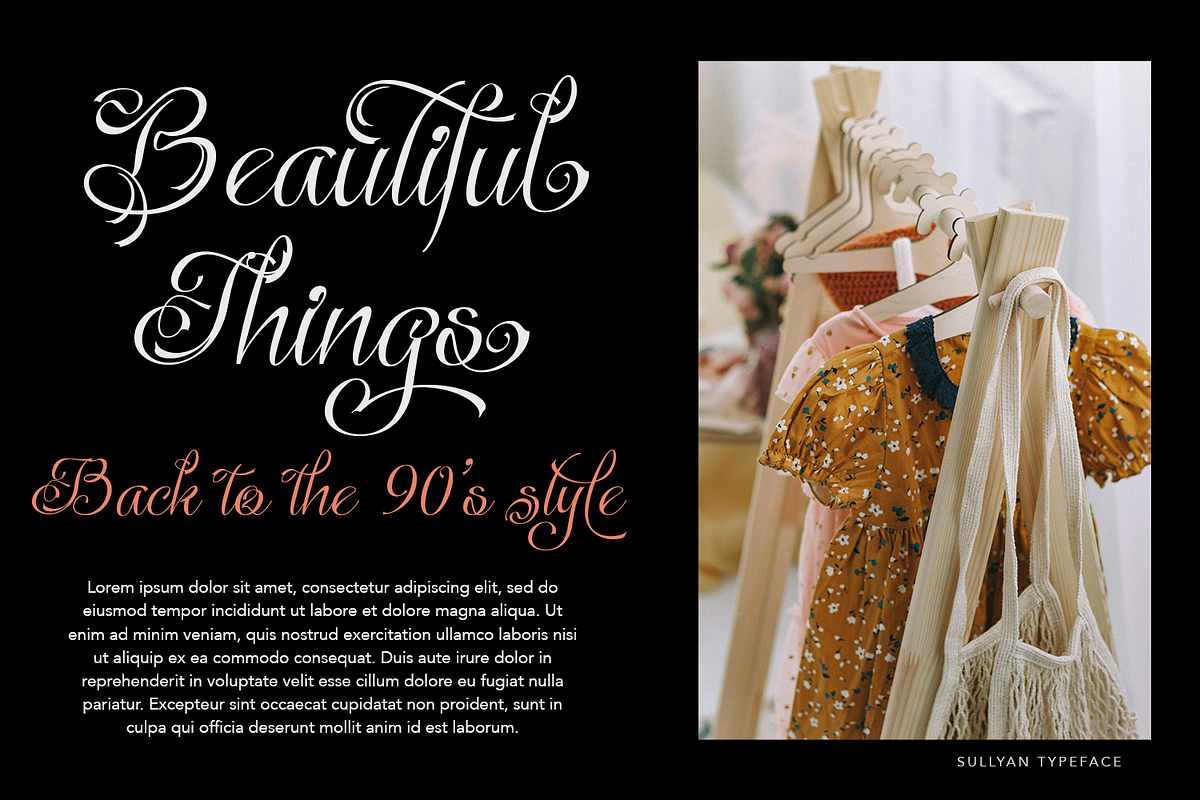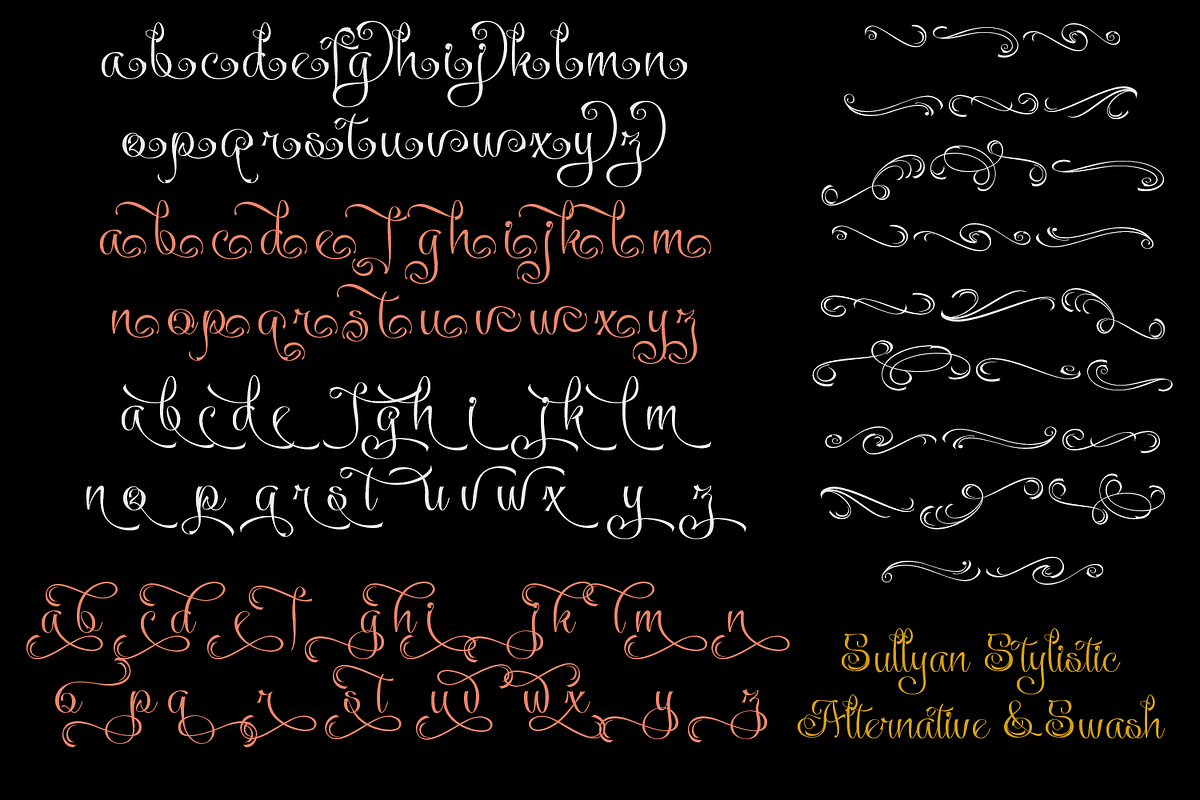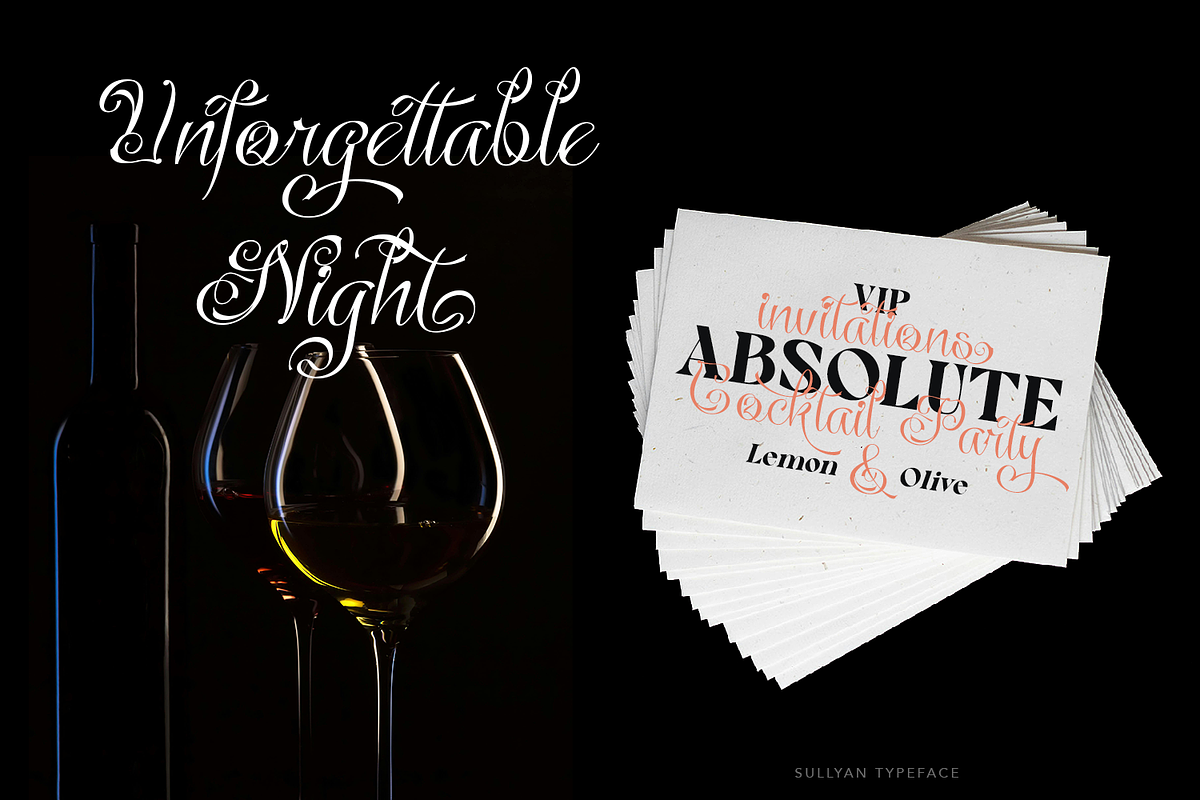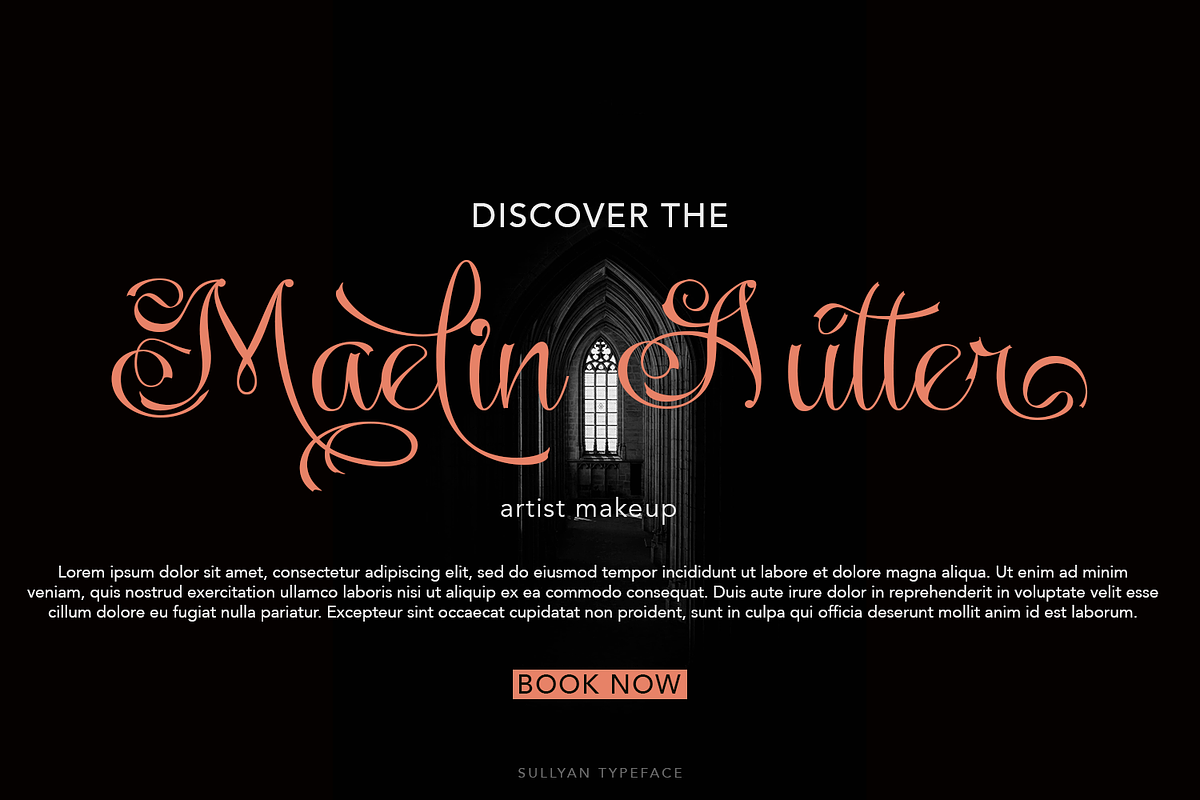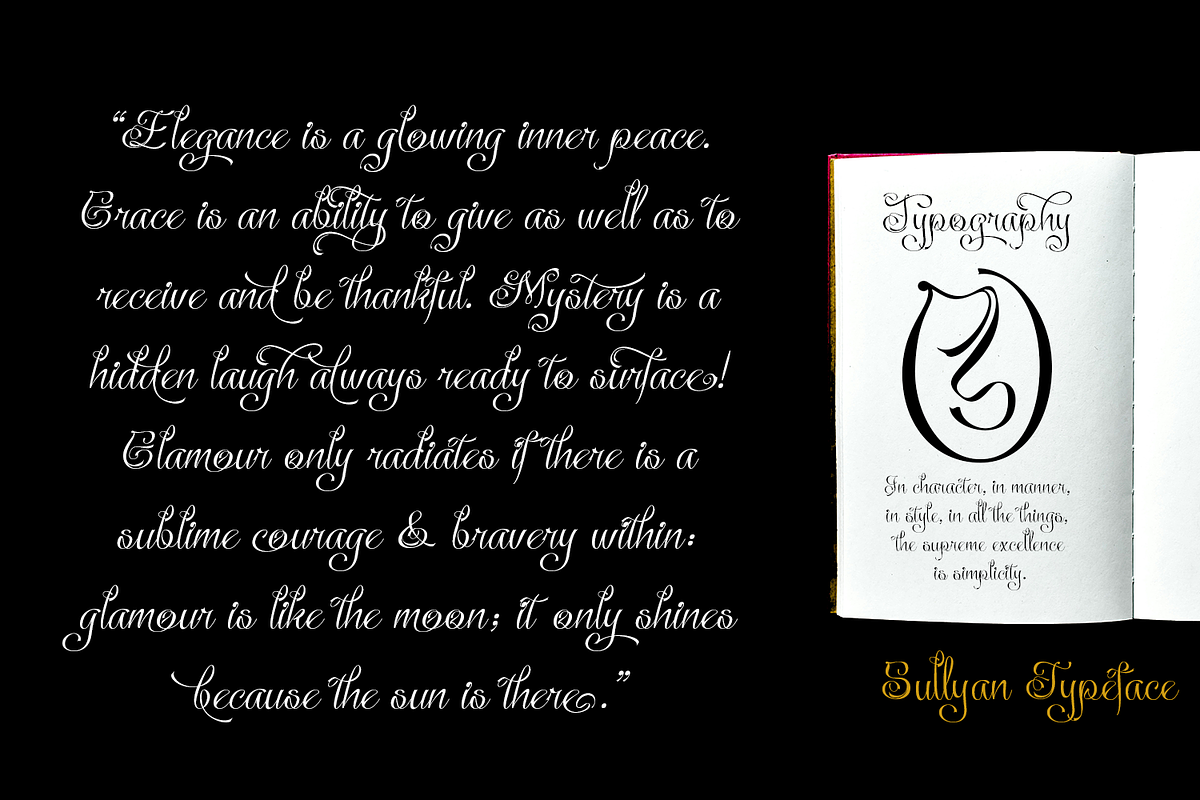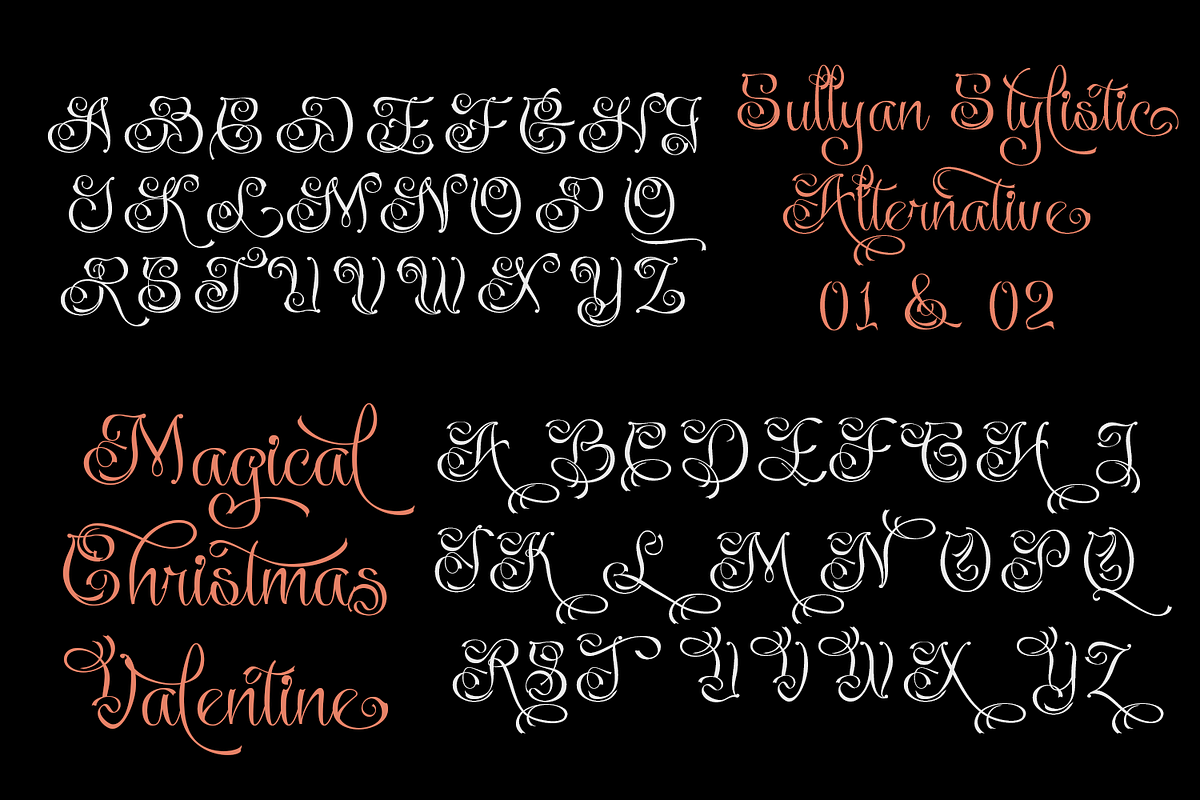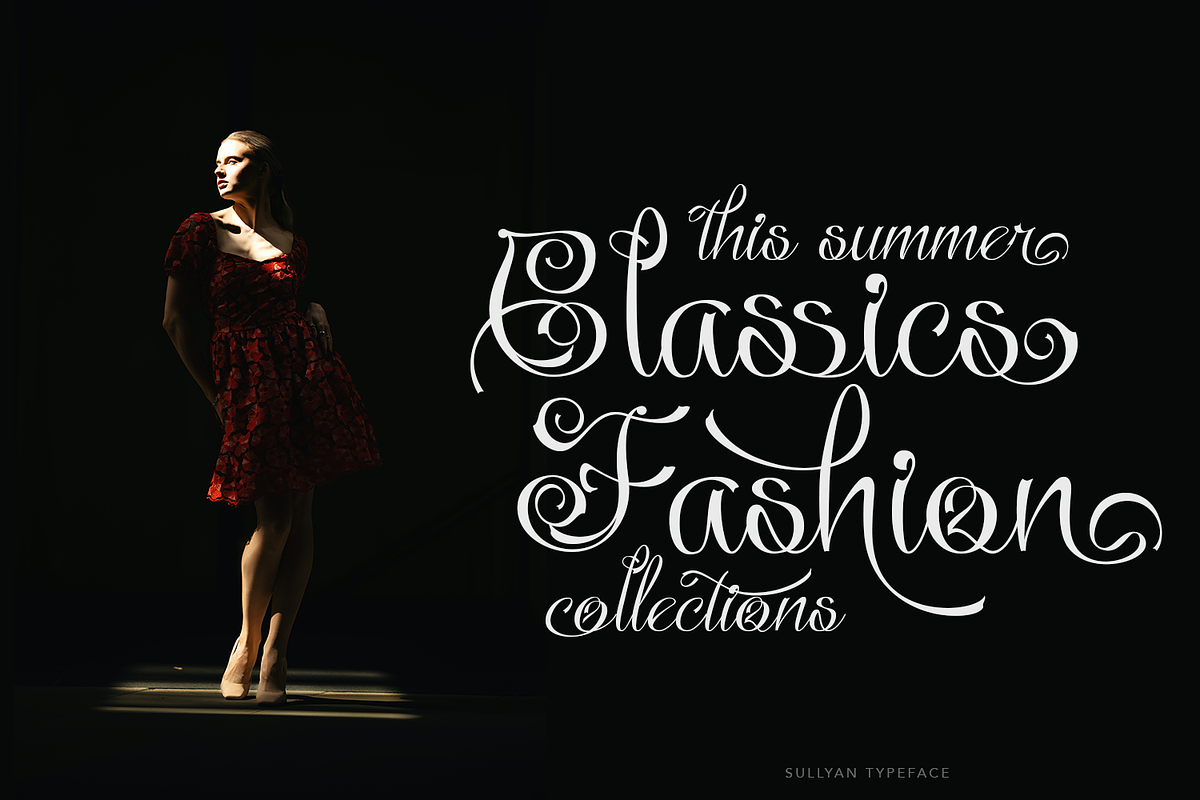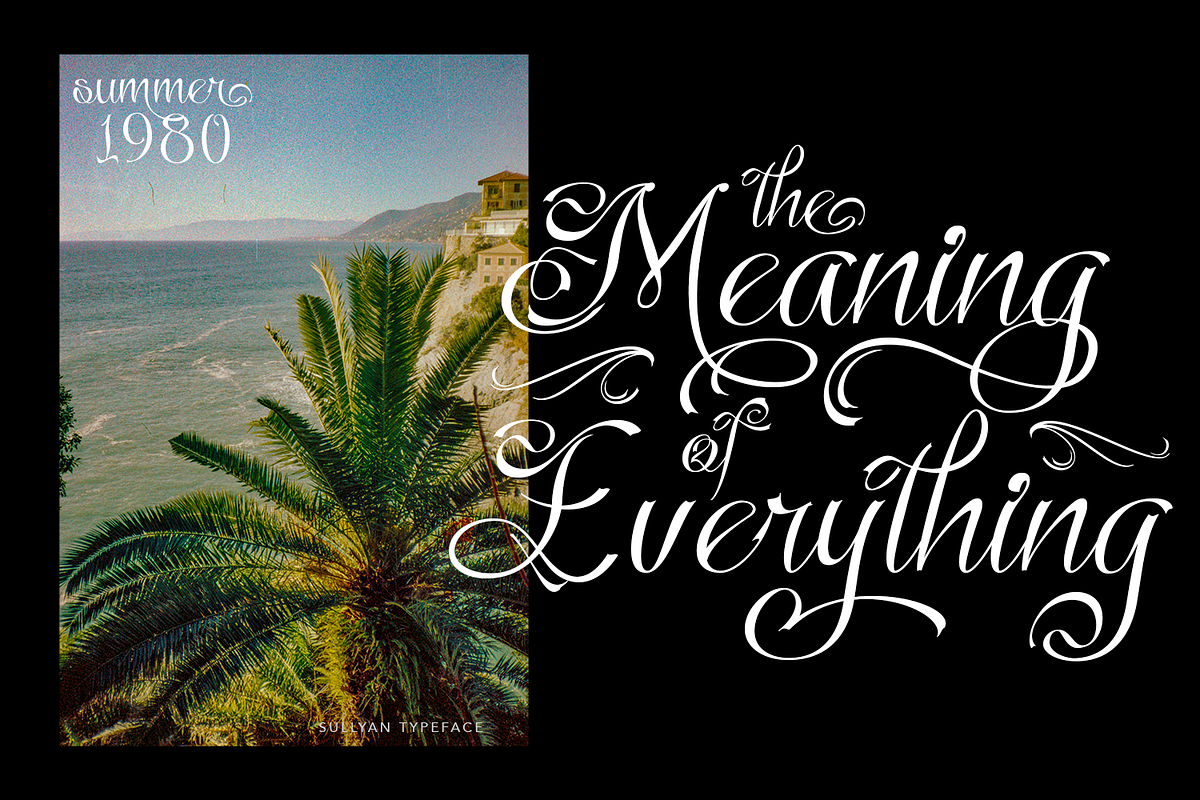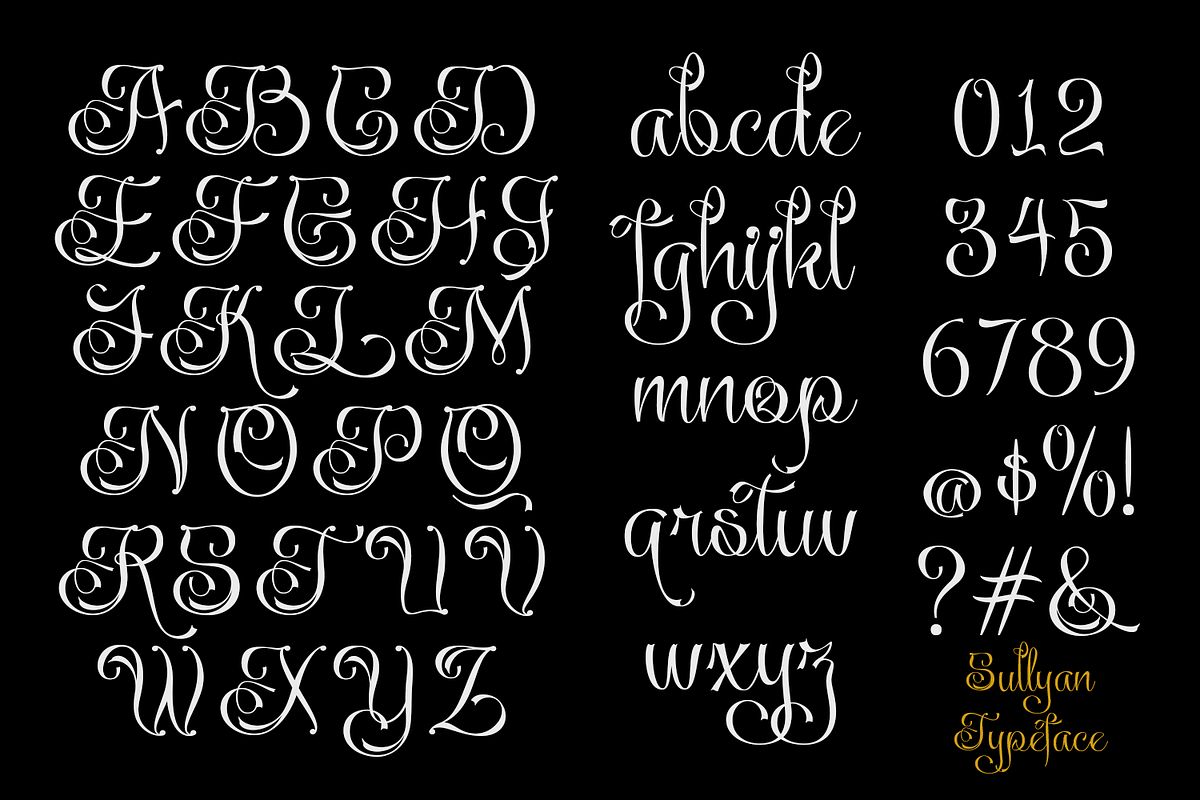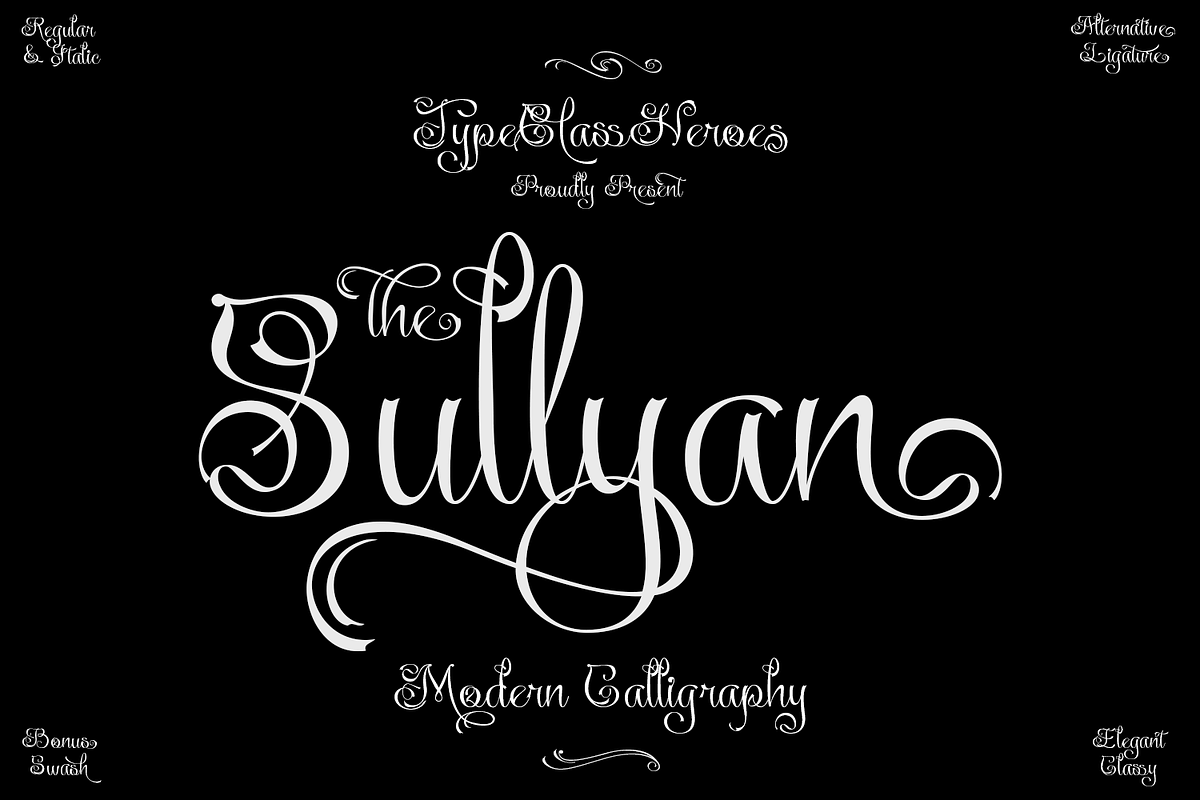
Sullyan Modern Calligraphy
Sullyan is a new Calligraphy script with elegant curves, The letterforms are highly stylized with ornate swashes thick and thin strokes make it ideal for high-end branding, book covers, or high class invitations, particularly for classic or heritage brands.
- International Glyphs